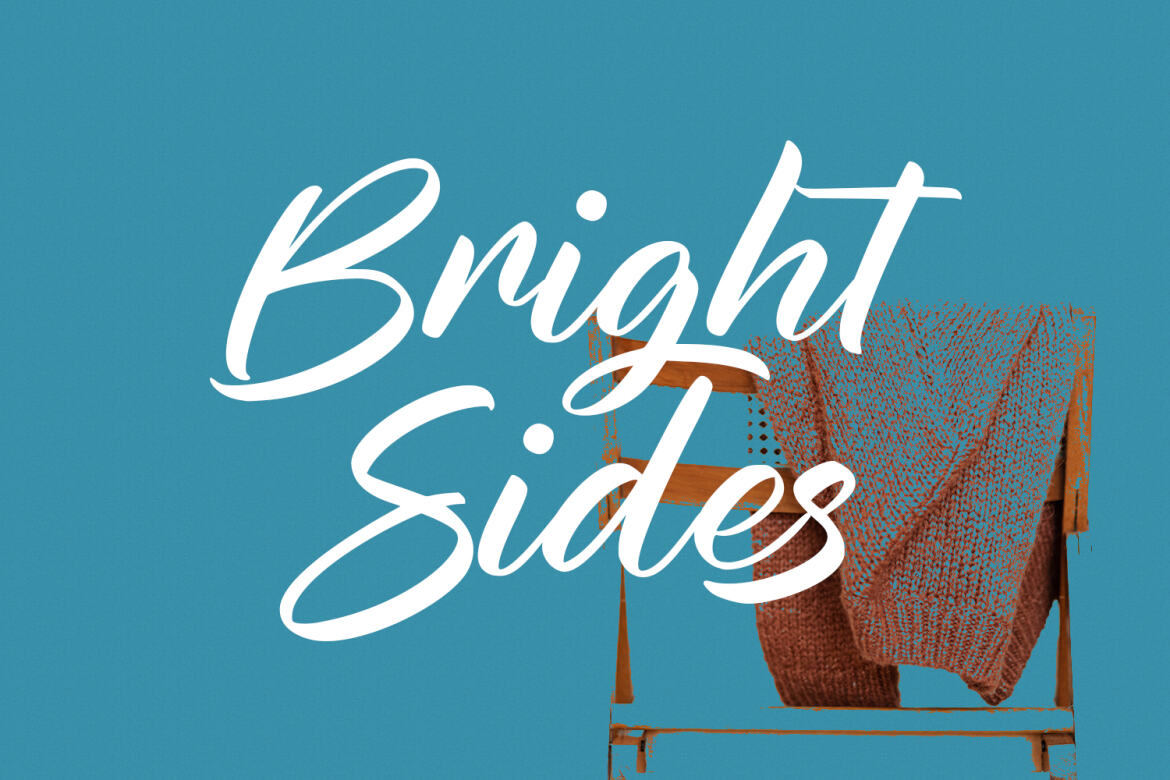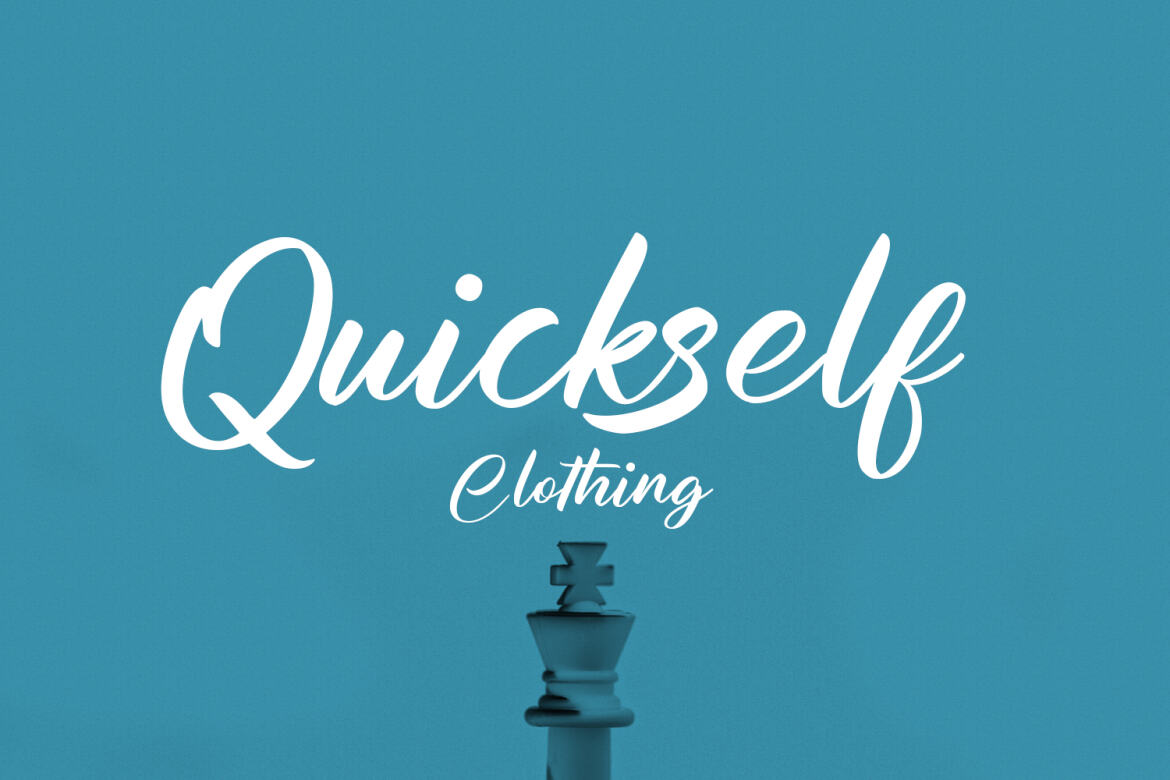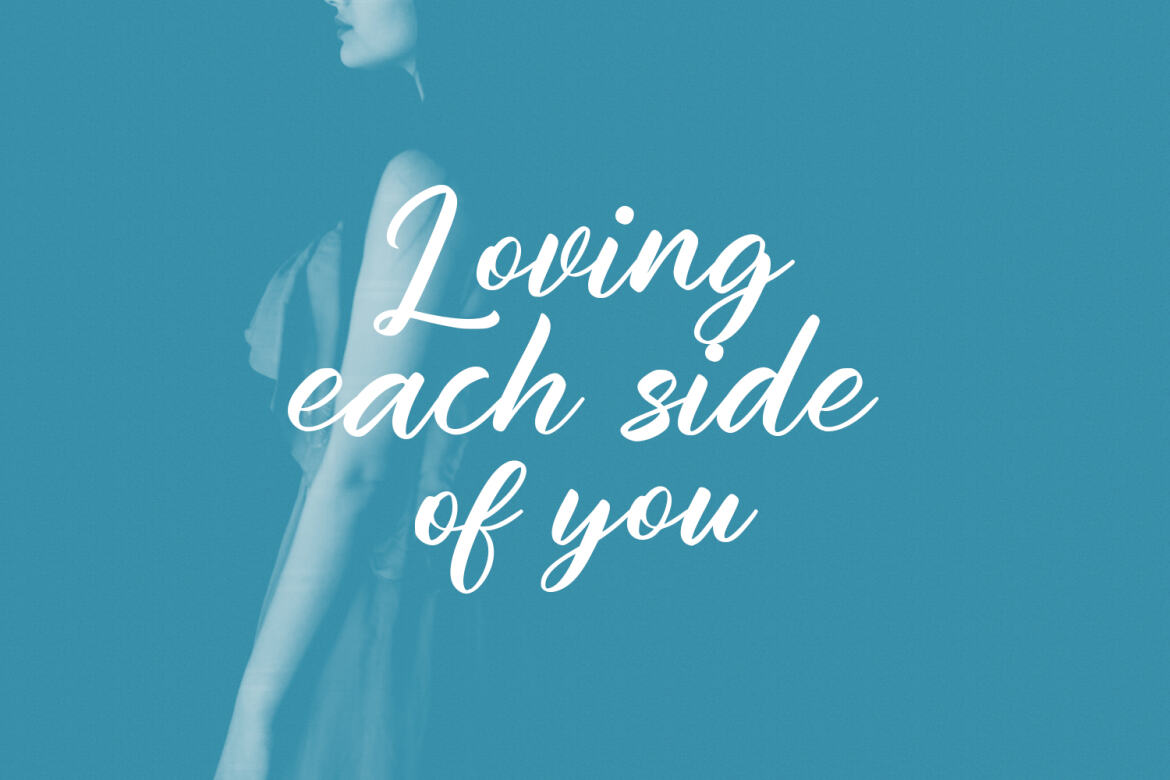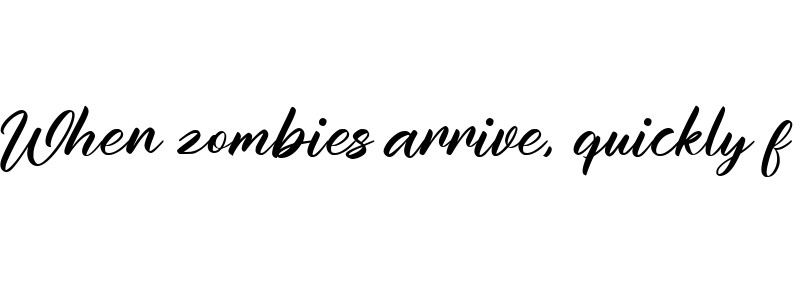
Simon Drake FREE Script Font
Simon Drake
Simon Drake is a casual modern script font. With medium contrast stroke, fun character with a bit of ligatures and alternates. To give you an extra creative work. Simon Drake font support multilingual more than 100+ language. This font is good for logo design, Social media, Movie Titles, Books Titles, a short text even a long text letter and good for your secondary text font with sans or serif. Make a stunning work with Simon Drake font.